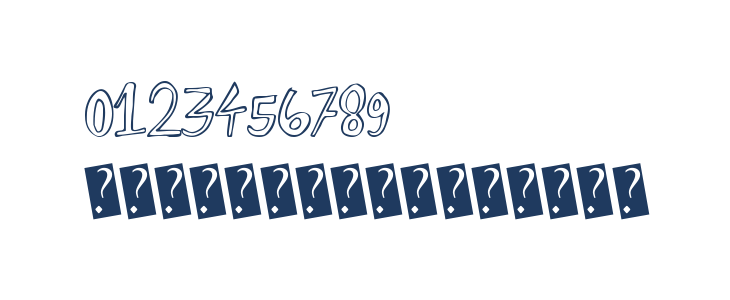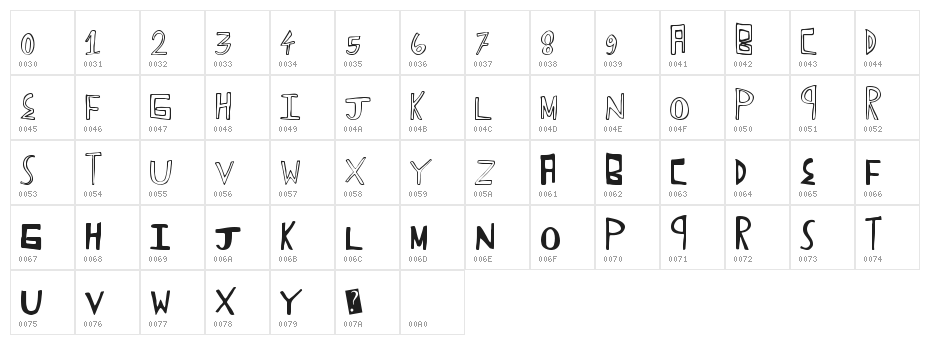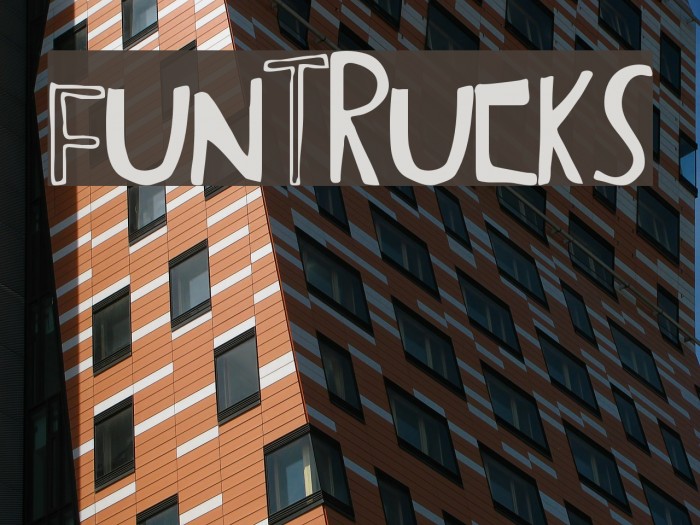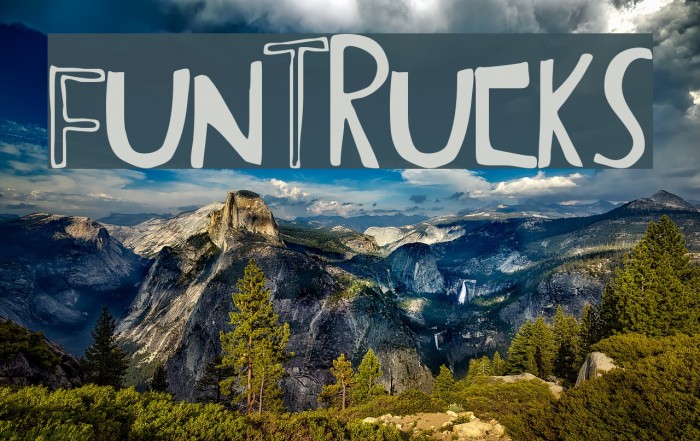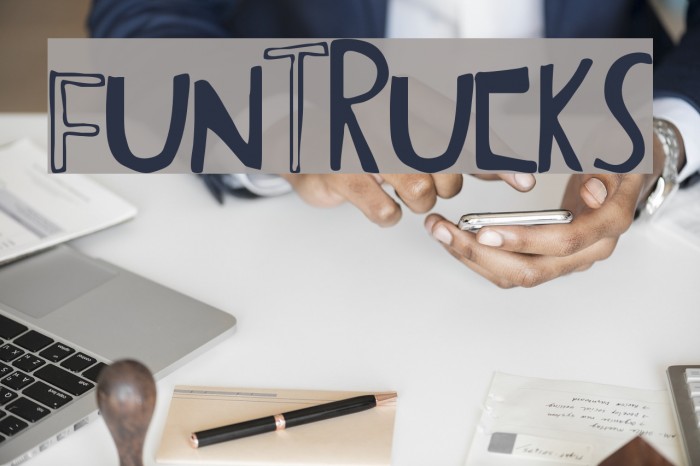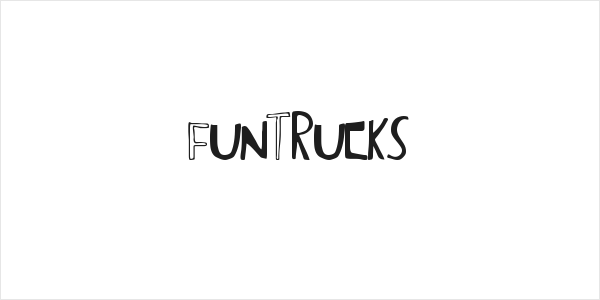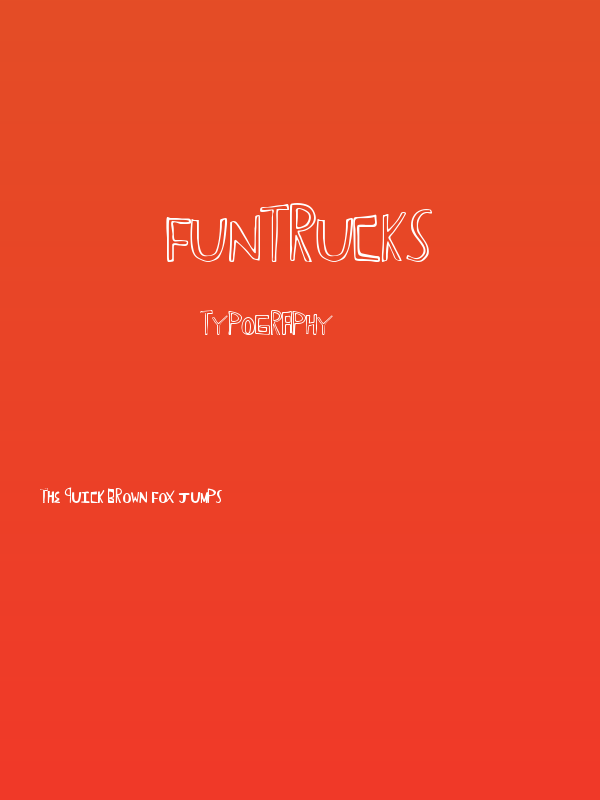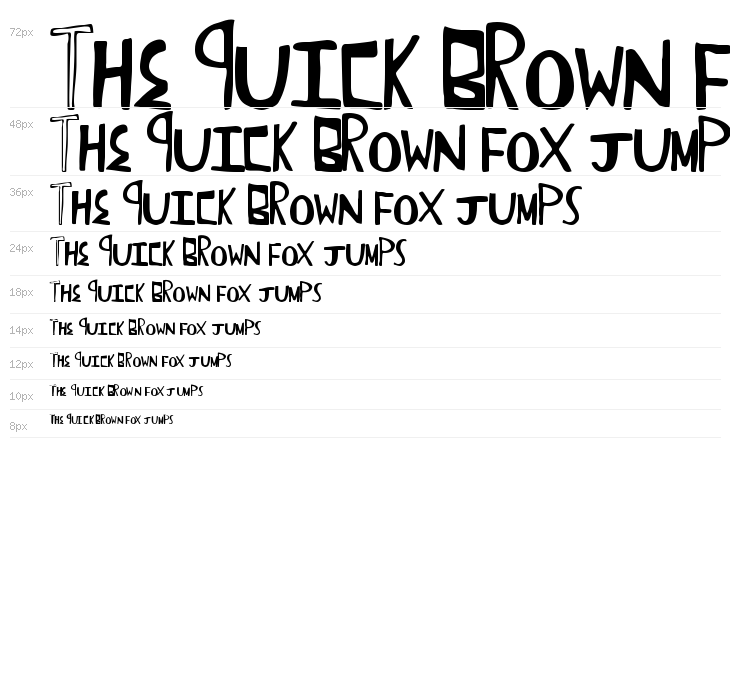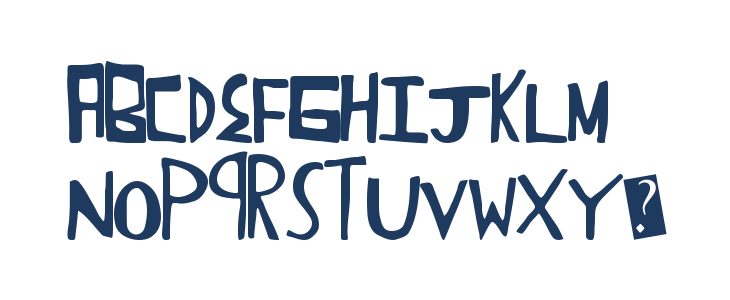
FunTrucks Font
FunTrucks Description
This playful and quirky font features a hand-drawn aesthetic with irregular, whimsical shapes. The uppercase letters are bold and slightly uneven, giving a sense of movement and fun. The lowercase letters maintain the same playful style, with a mix of rounded and angular forms. Numbers are similarly styled, with a unique flair that matches the overall theme. The special characters add to the font's charm, each designed with a creative twist. This font is perfect for projects that require a lighthearted and informal touch, such as children's books, playful branding, or creative posters.
| Overall Style | Playful |
| Proposed Projects | Ideal for children's books, playful branding, creative posters, and informal invitations. |